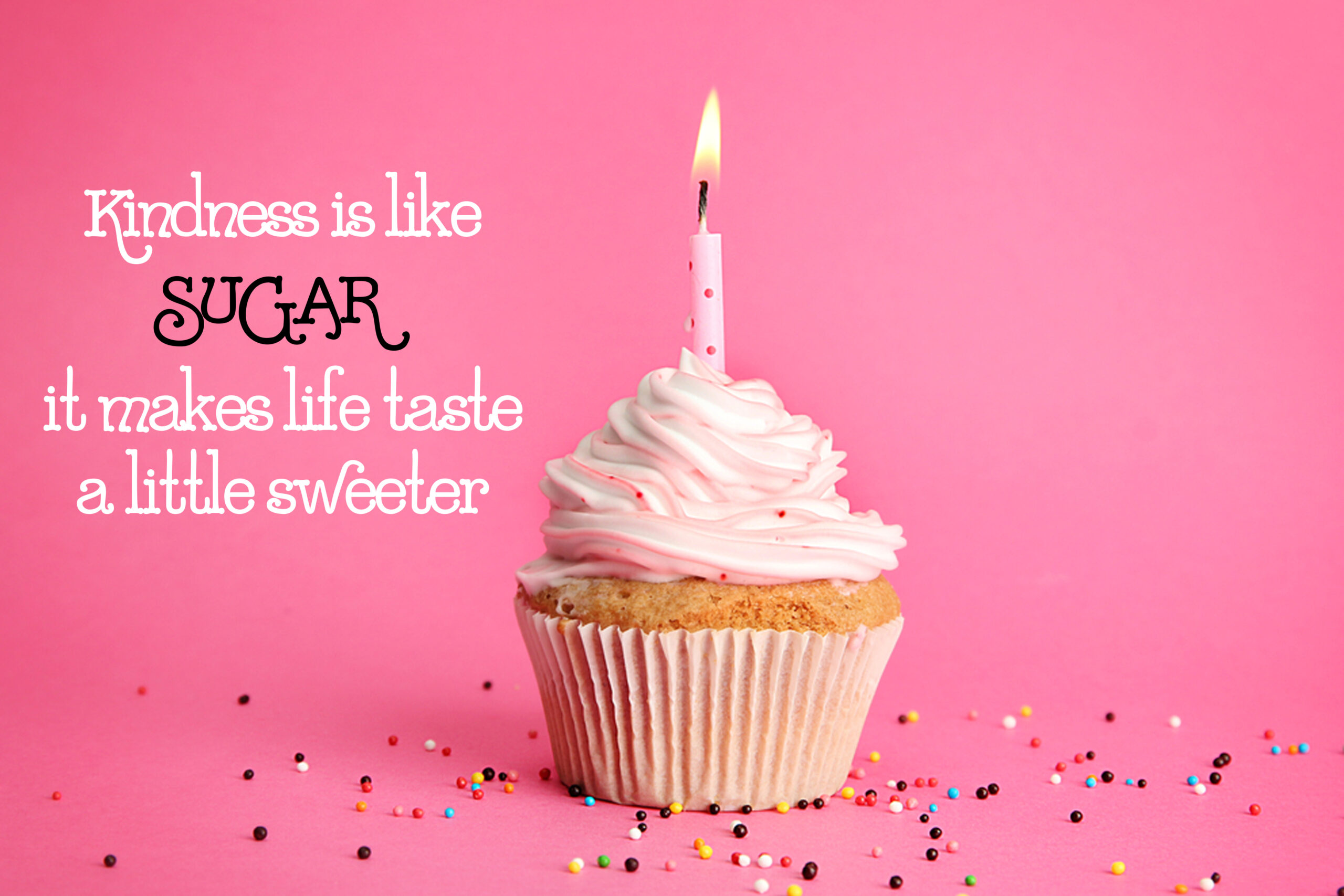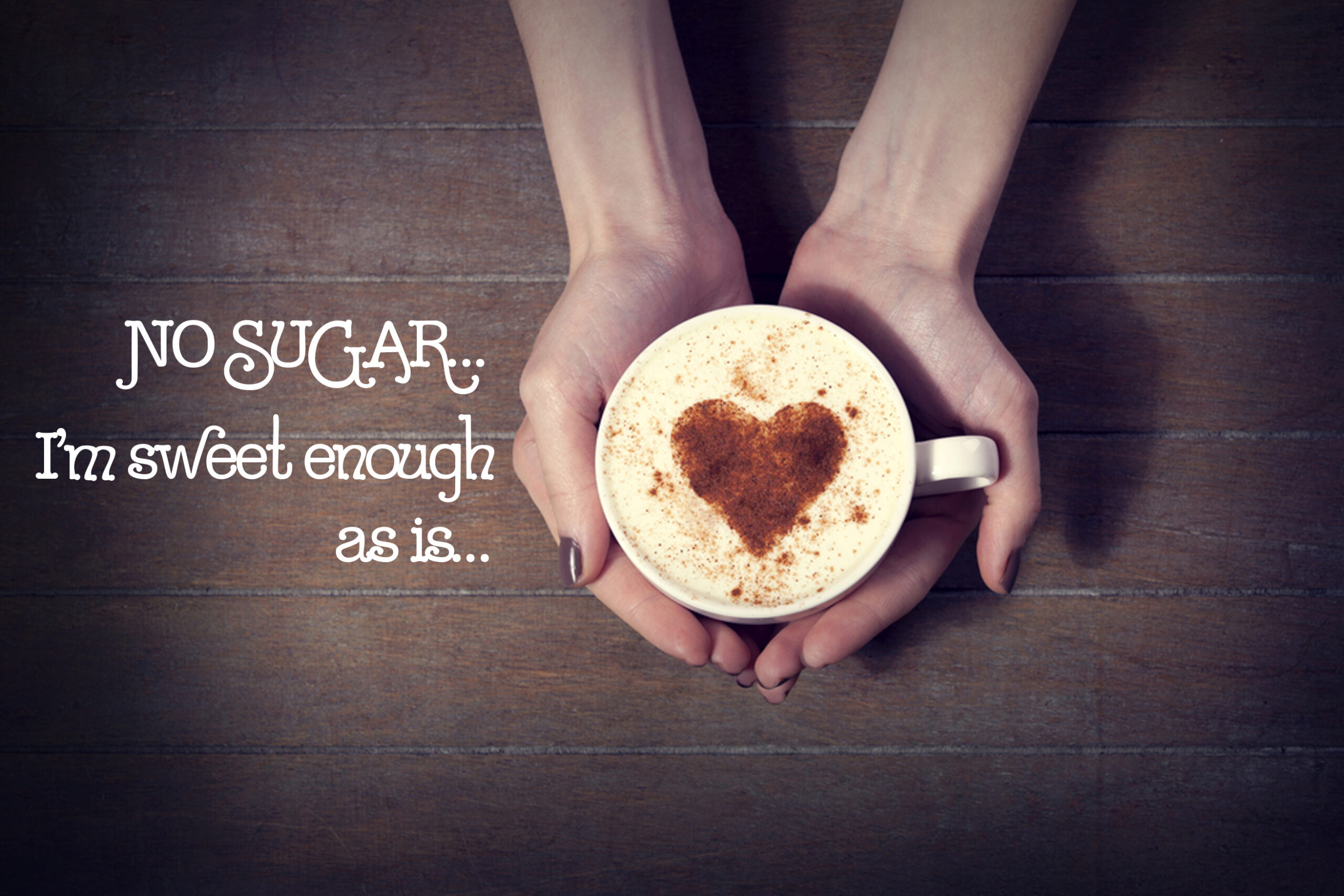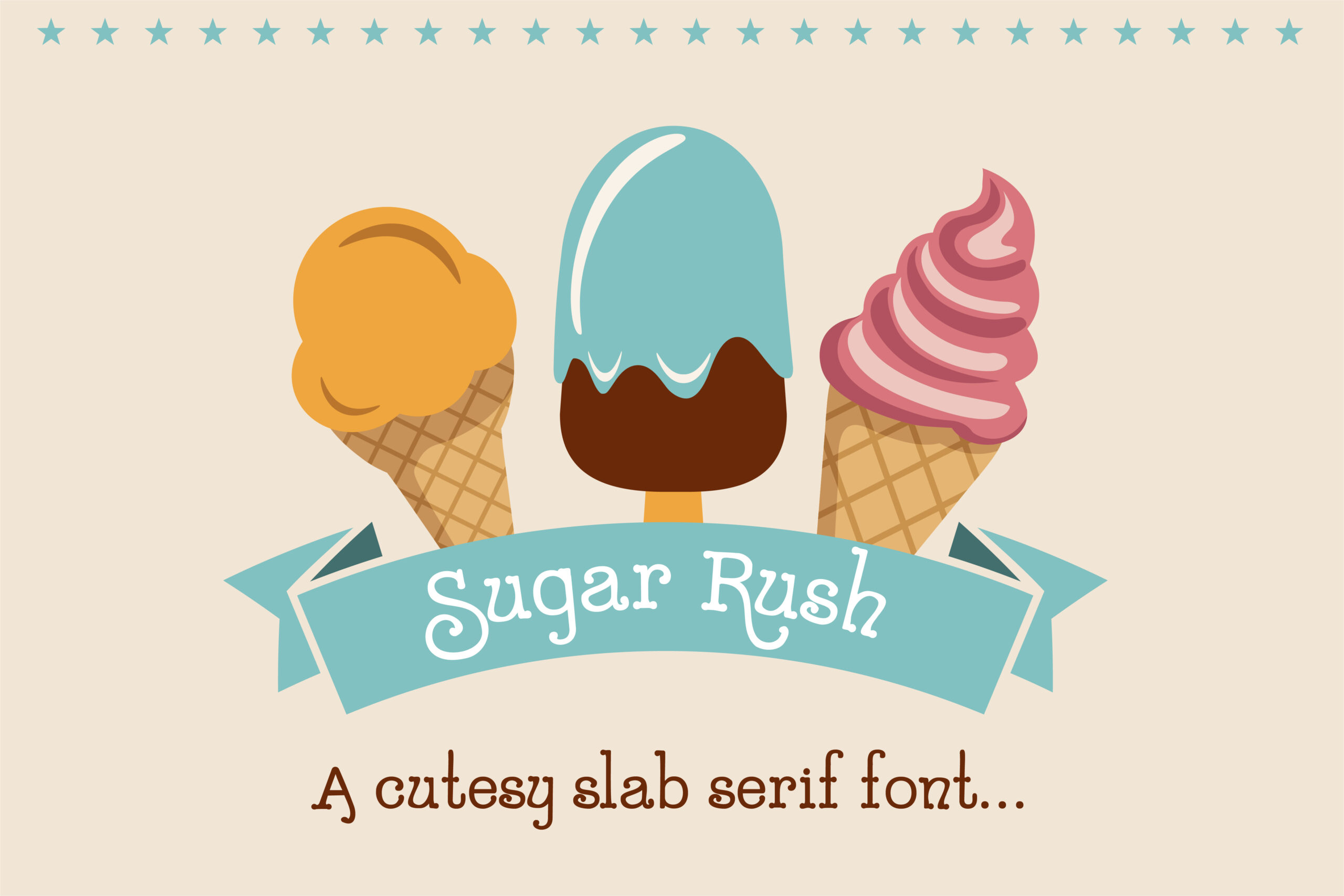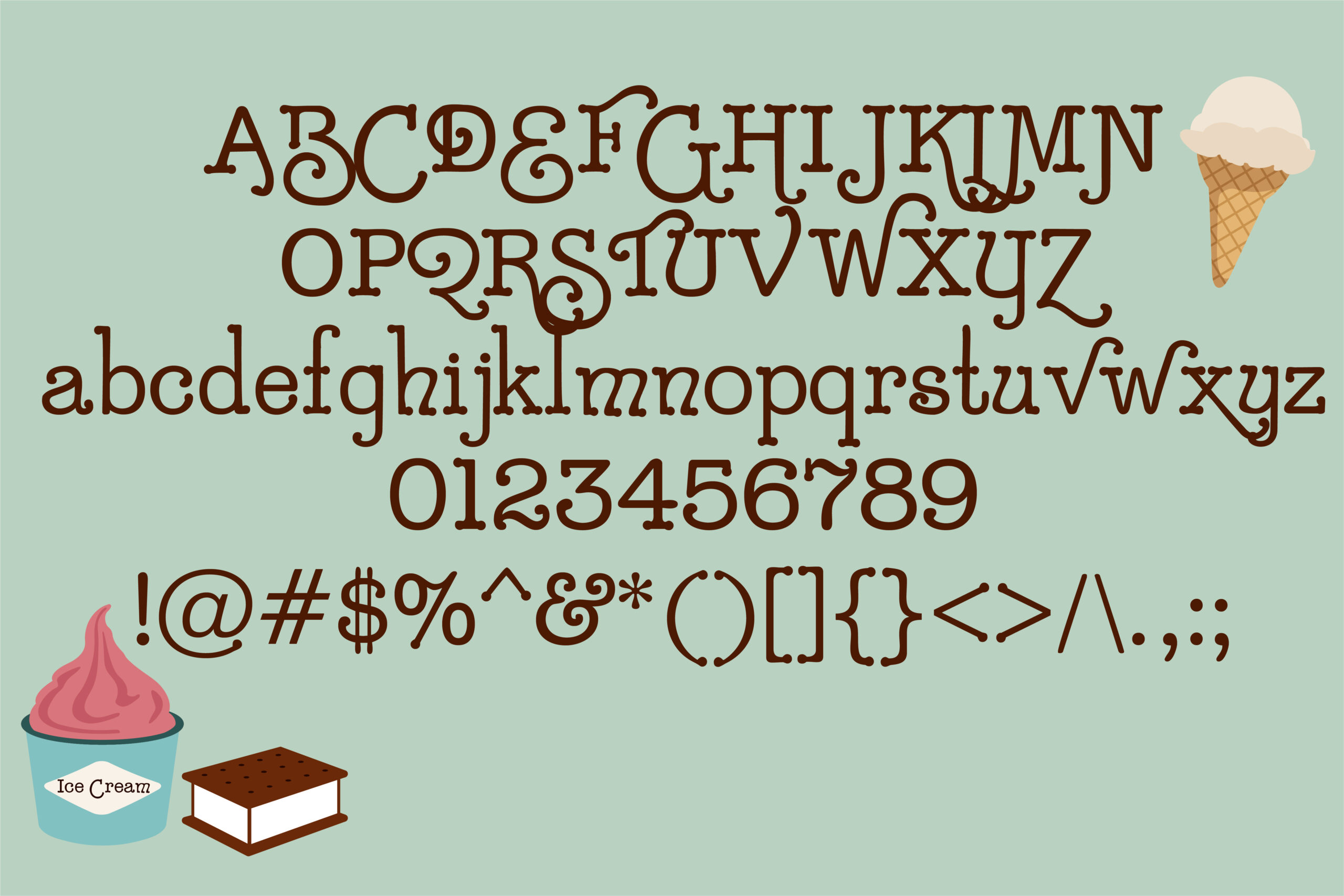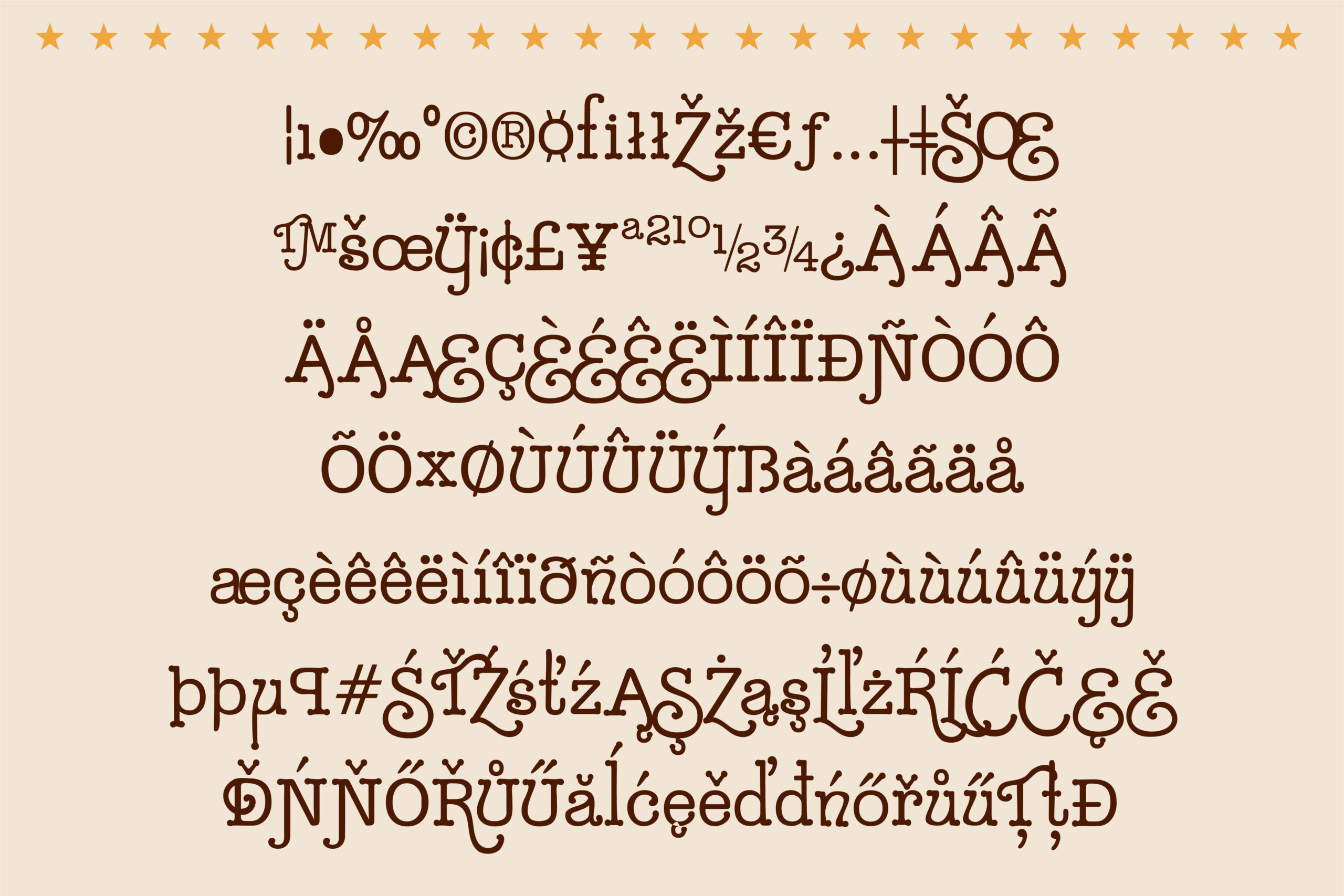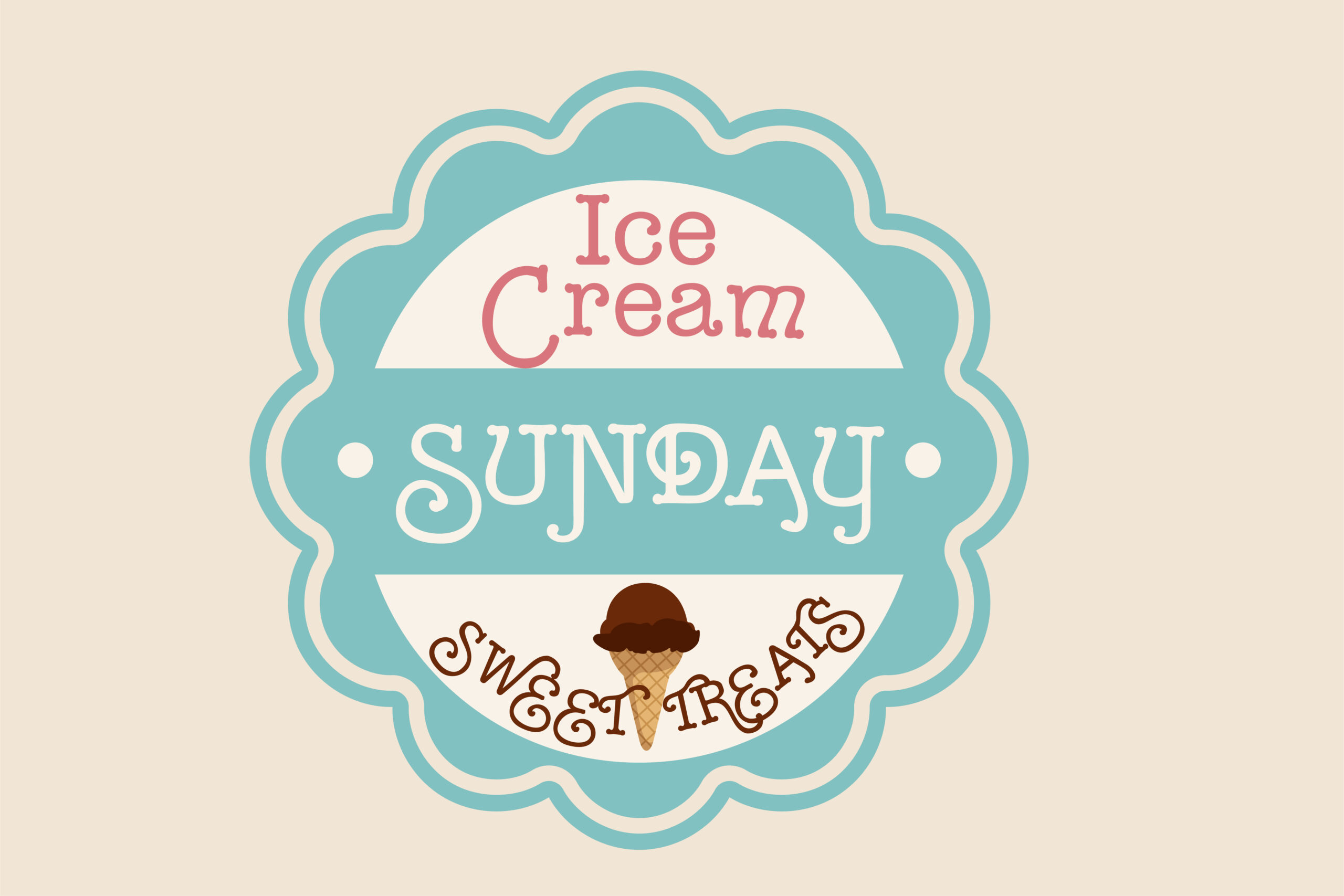
Sugar Rush
Sugar Rush: A Whimsical and Playful Slab Serif Font
Sugar Rush is a charming slab serif font that stands out with its unique and playful design. This font captures attention with its distinctive uppercase letters that dip below the baseline, creating a whimsical and eye-catching effect.
Key Features of Sugar Rush
• Playful Design: The font’s uppercase letters uniquely extend below the baseline, adding a fun twist to traditional typography.
• Whimsical Touches: Throughout the typeface, you’ll find delightful details that enhance its overall charm.
• Slab Serif Style: Sugar Rush combines the boldness of slab serifs with a cute, approachable aesthetic.
Sugar Rush’s unique characteristics make it suitable for a wide range of design applications, including:
• Children’s book covers and illustrations
• Branding for candy shops or bakeries
• Playful website headers and graphics
• Greeting cards and invitations for fun events
Comparison with Other Slab Serif Fonts
While Sugar Rush shares the bold characteristics of other slab serifs like Tecnica Slab Family, its playful nature sets it apart. Unlike more traditional slab serifs such as Osgood Slab, Sugar Rush offers a more lighthearted and fun approach to typography.
When using Sugar Rush in your designs, consider the following tips:
• Use the font’s unique baseline-dipping uppercase letters to create eye-catching headlines
• Pair with simpler sans-serif fonts for body text to create contrast
• Experiment with bright colors to complement the font’s playful nature
Sugar Rush is an excellent choice for designers looking to add a touch of whimsy and fun to their work. Its unique blend of slab serif structure and playful design elements makes it stand out in the world of typography. Whether you’re working on logo designs, children’s book layouts, or creative branding projects, Sugar Rush offers the perfect balance of readability and charm.
To sum up, explore how Sugar Rush can bring a sweet and playful touch to your design projects. By incorporating this font, you’ll add a delightful twist to your typography that’s sure to catch the eye and bring a smile to your audience’s faces.